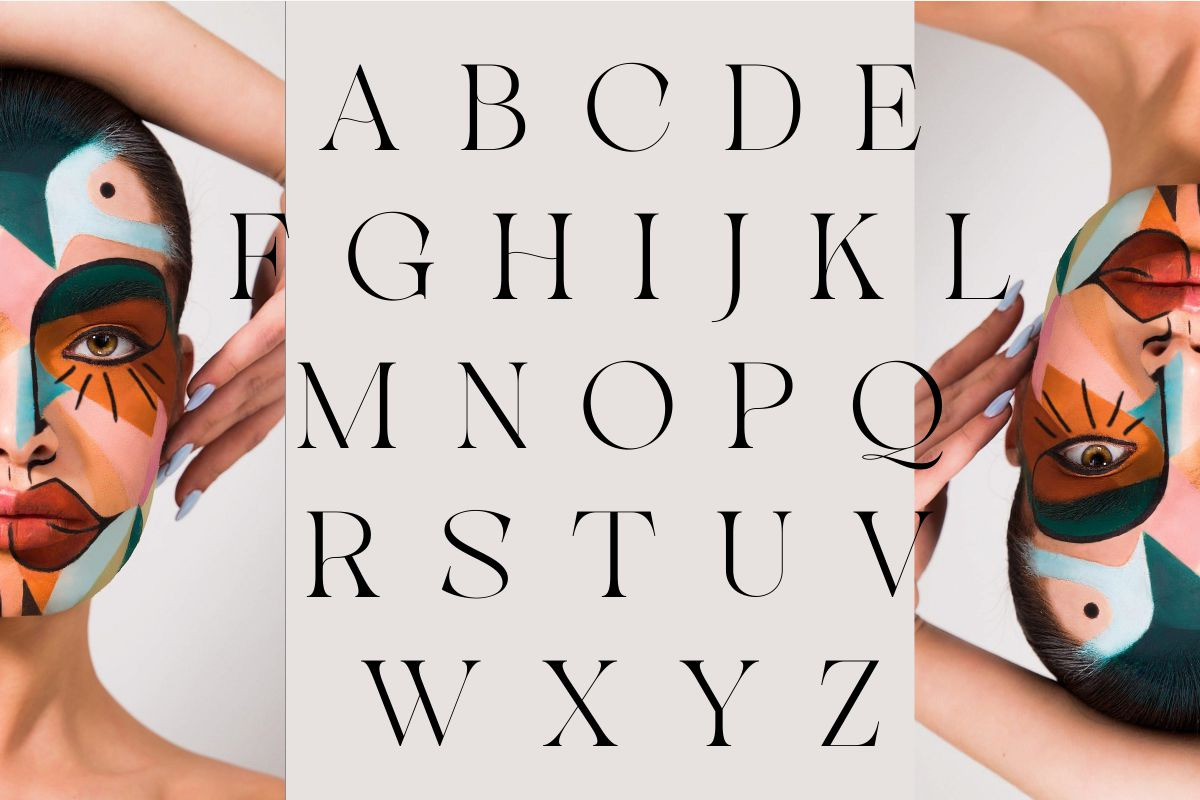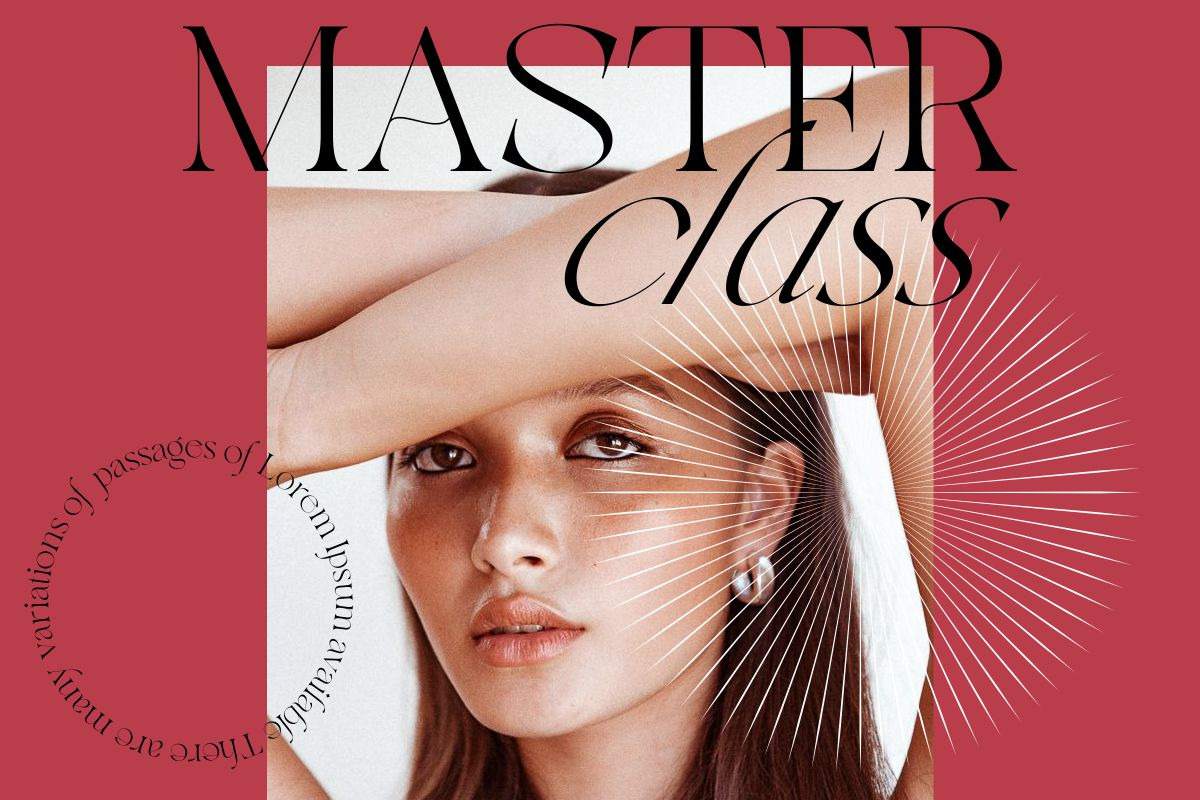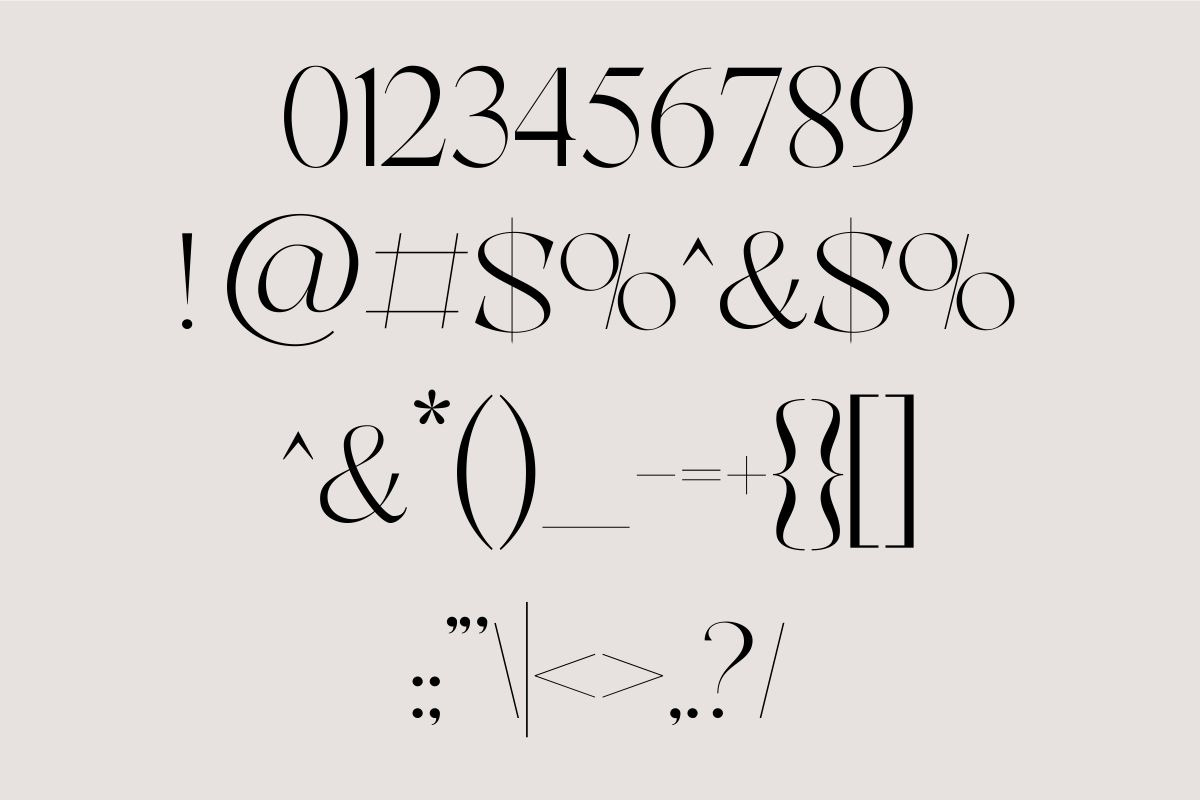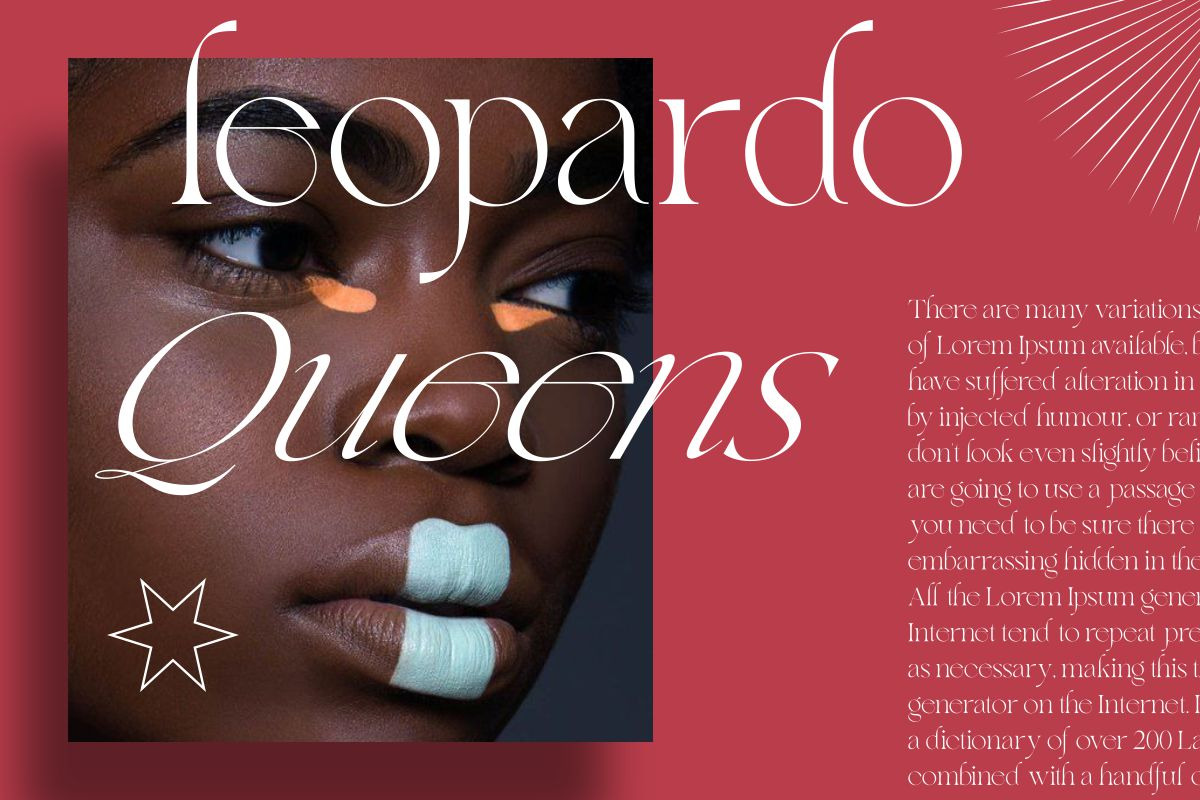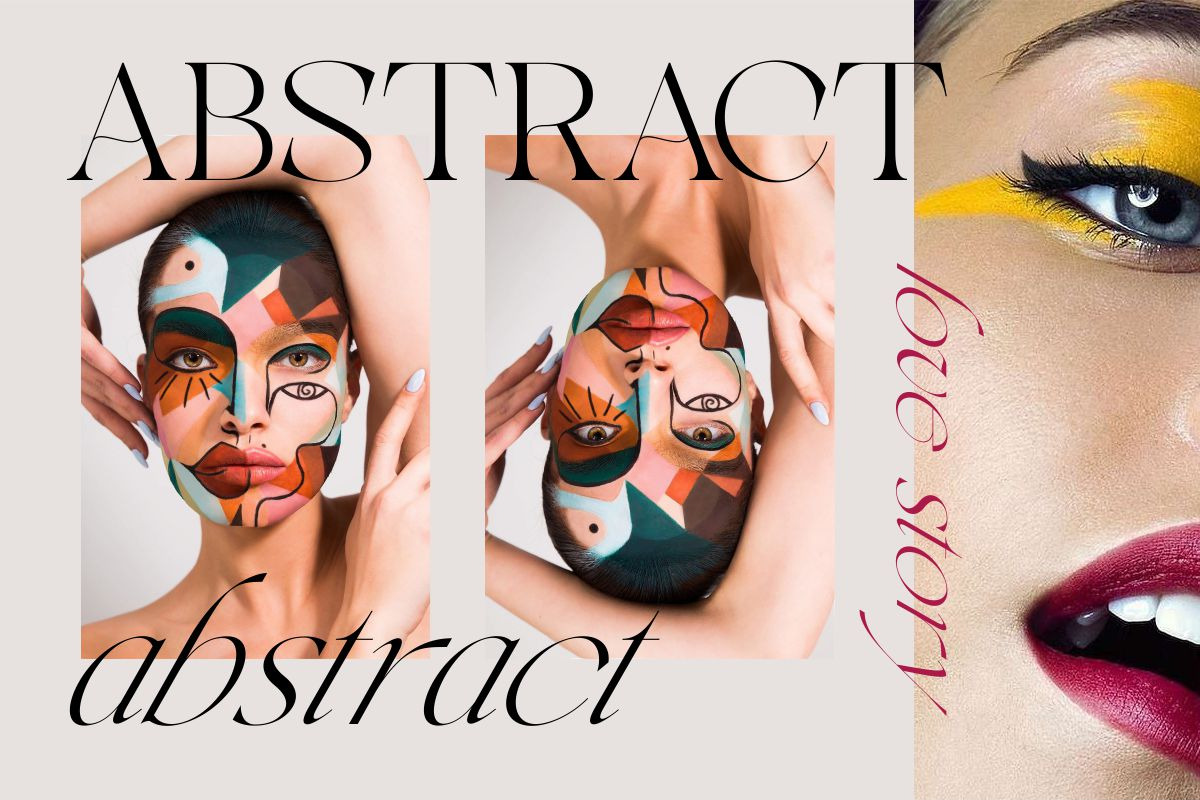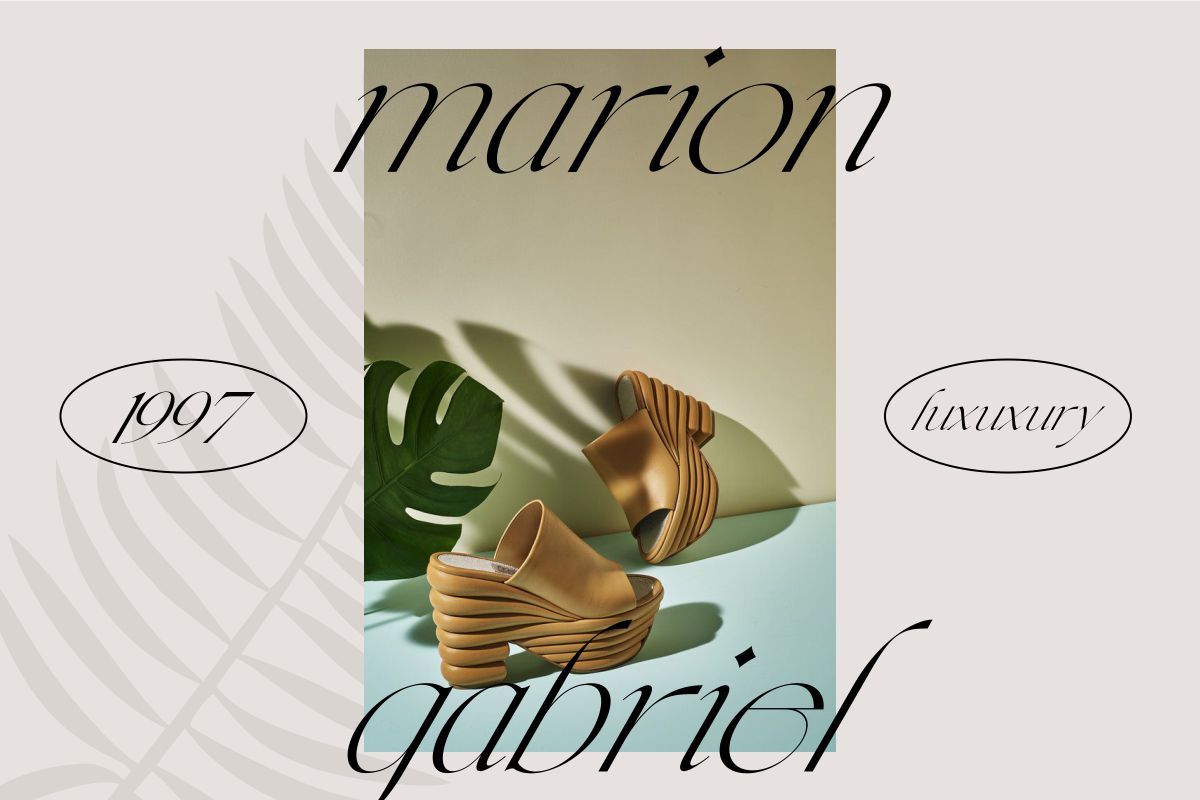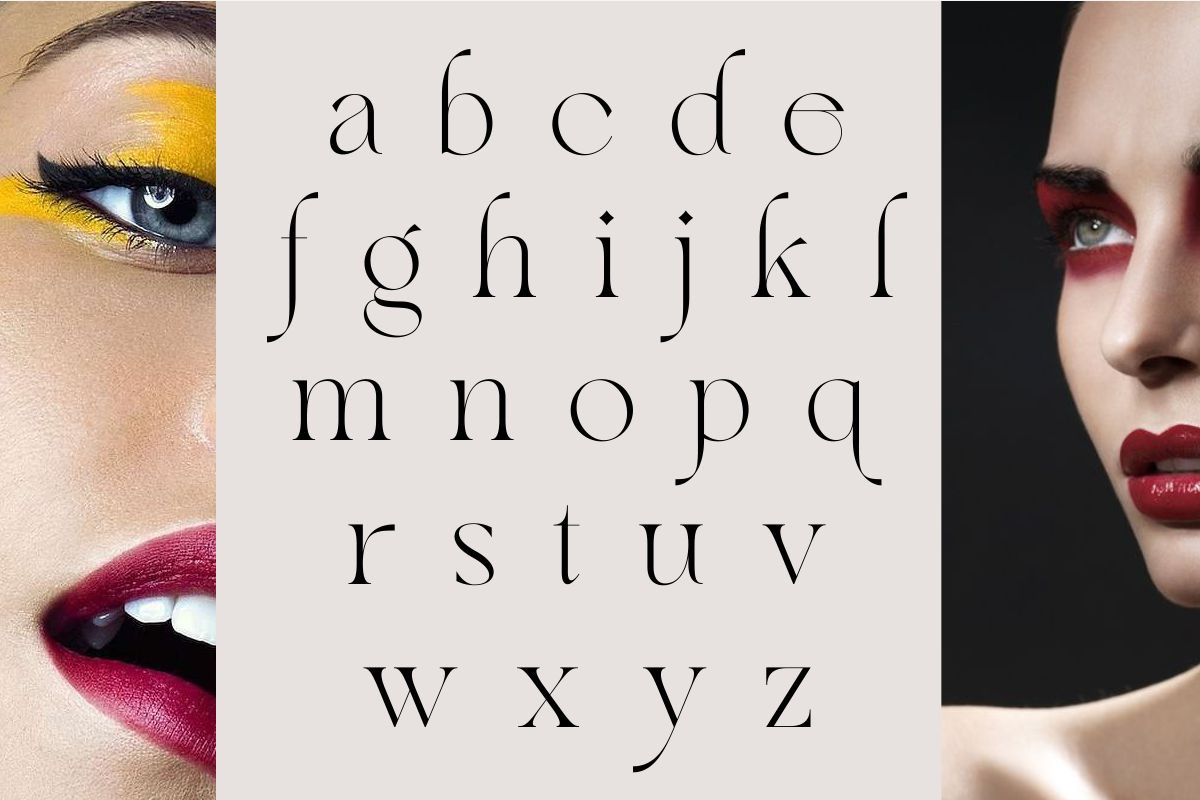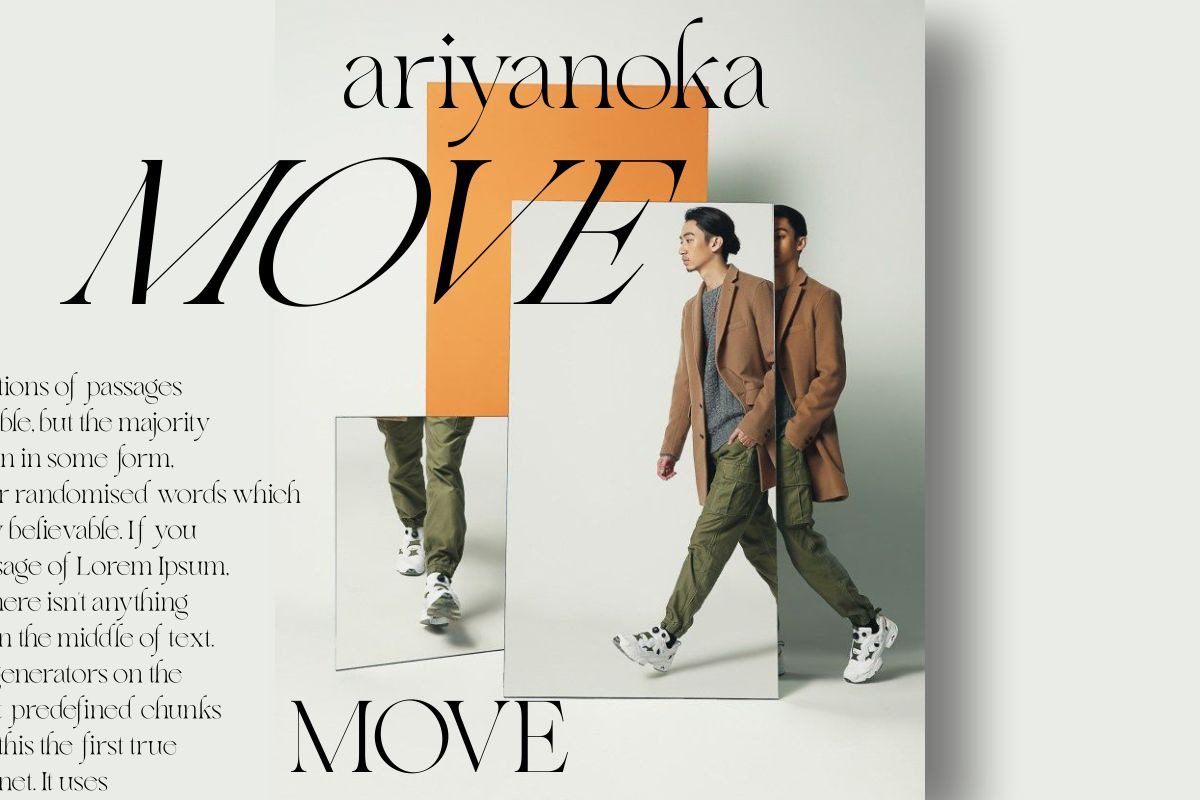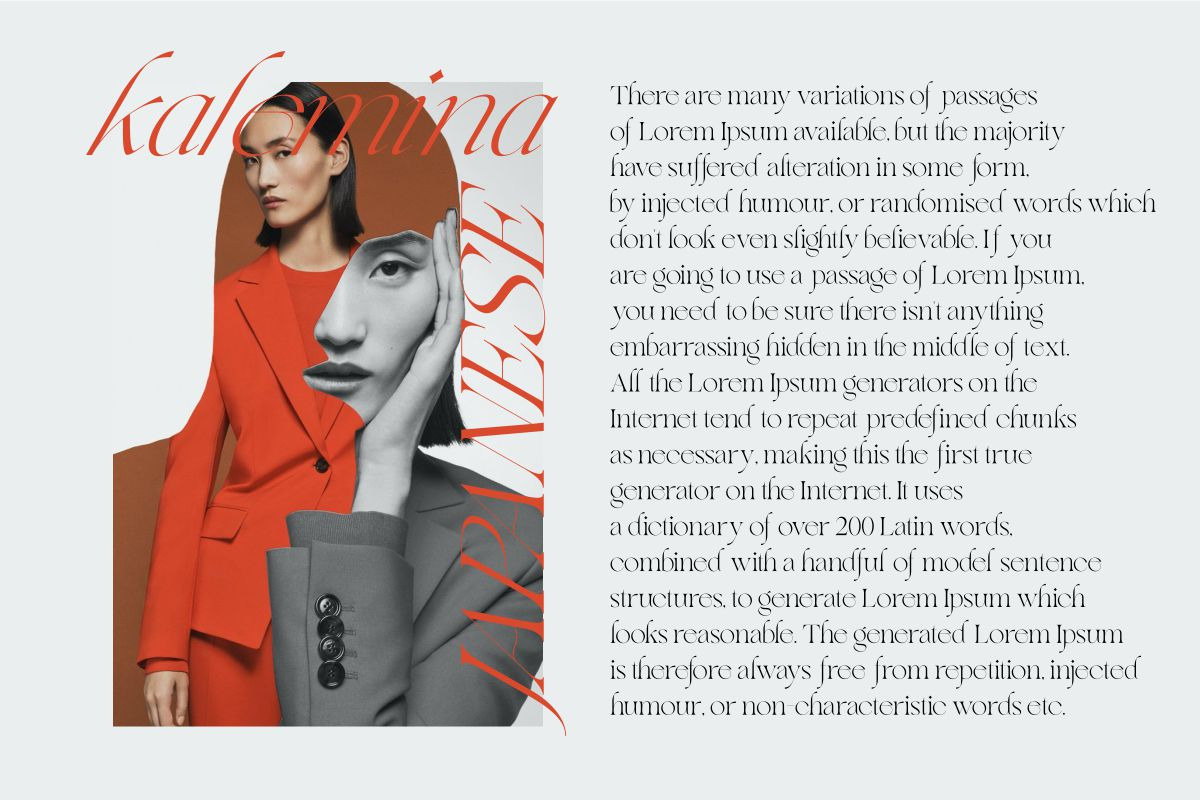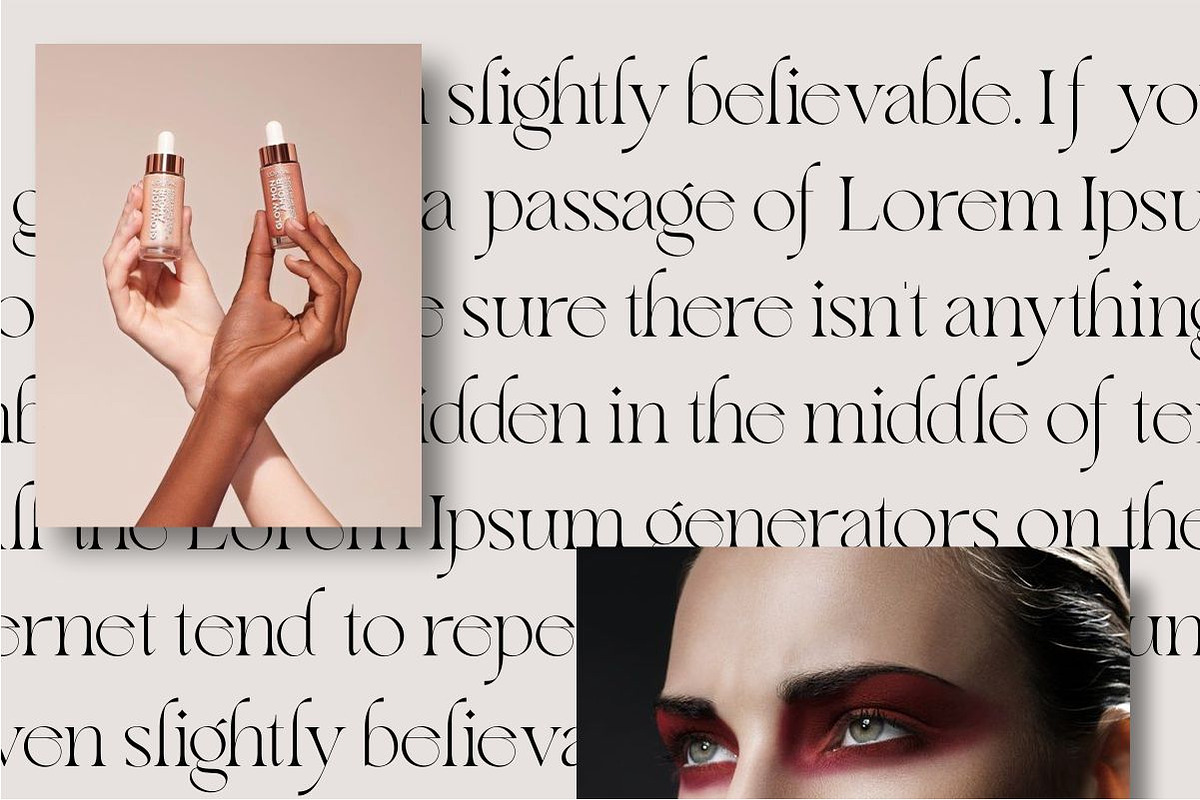
Love Story Self Made | Modern Serif
Love Story Self Made fonts includes uppercase letters, lowercase letters, numerals, a large range of punctuation. Serif font with modern style. Created for poster, web design, branding, illustrations, badges and some other works.